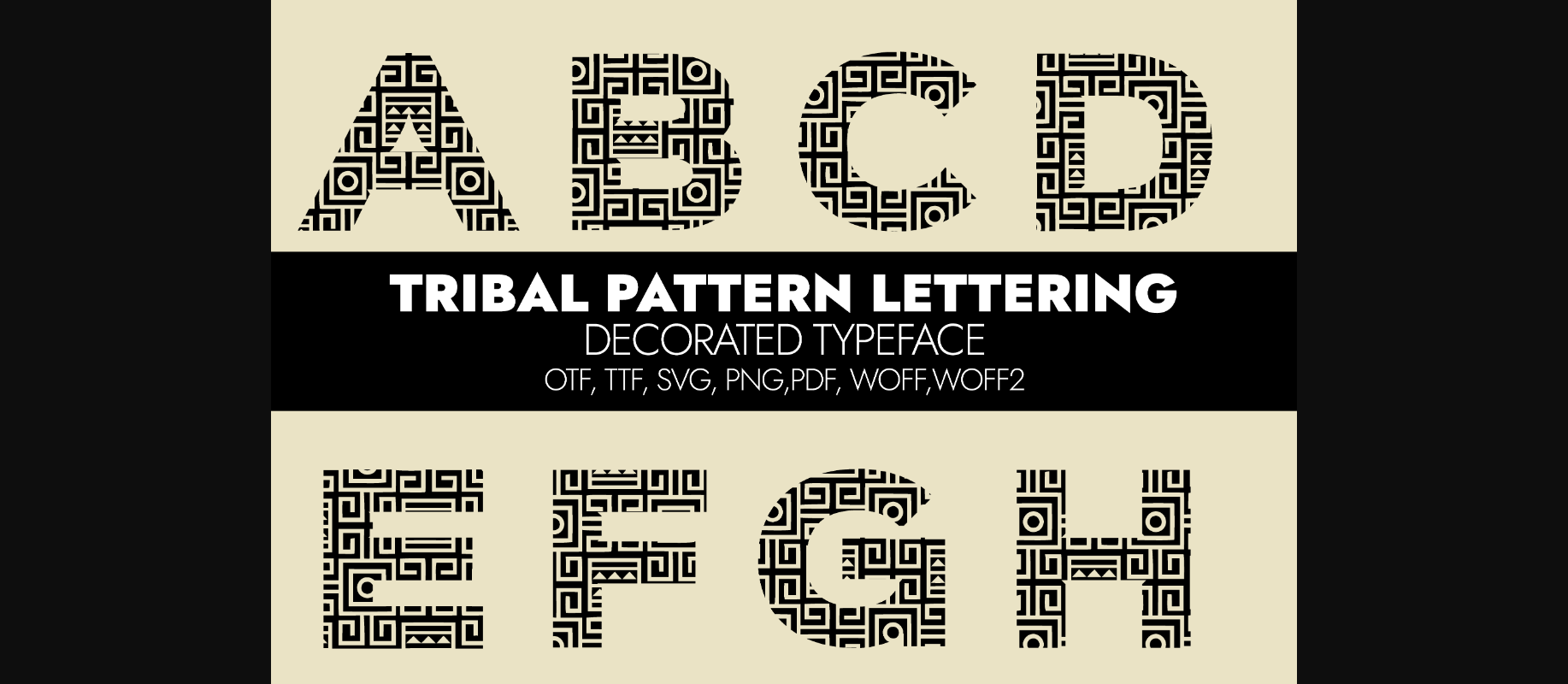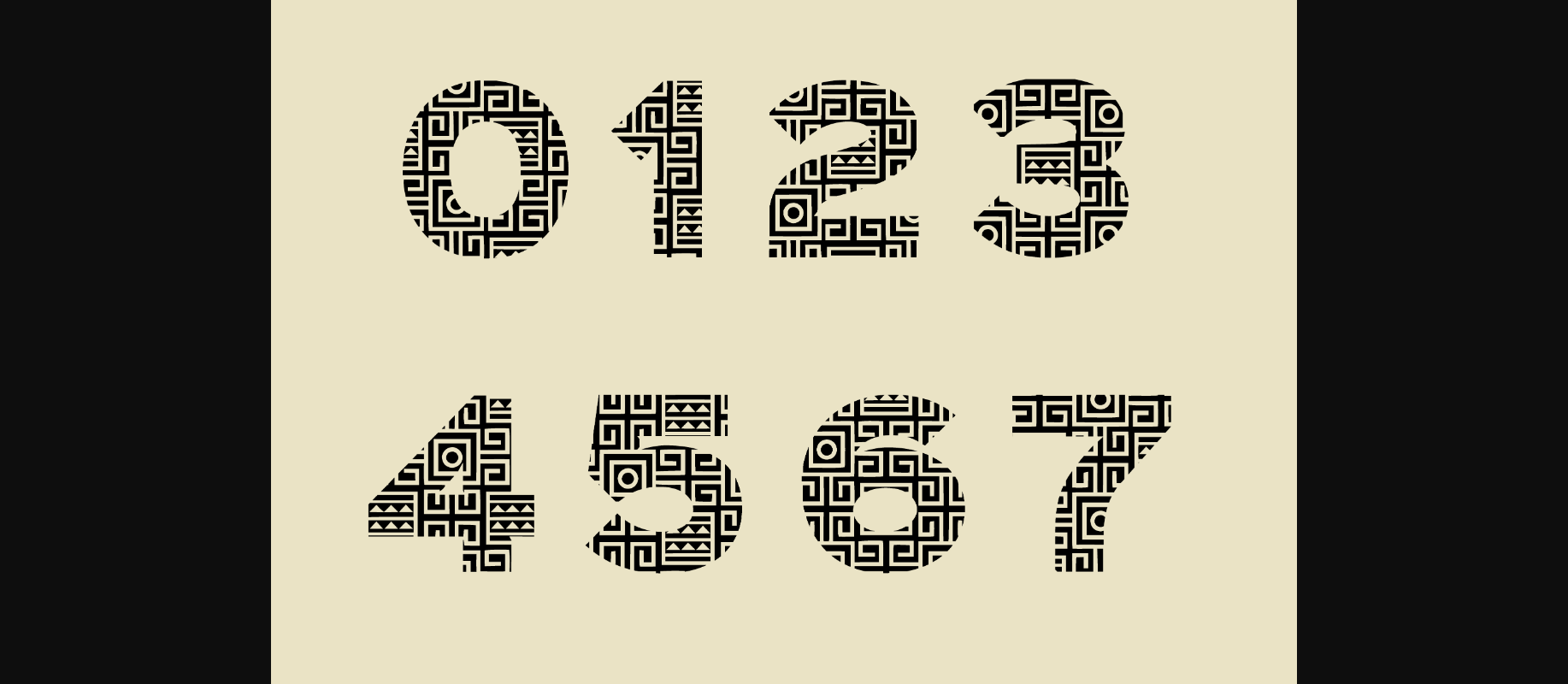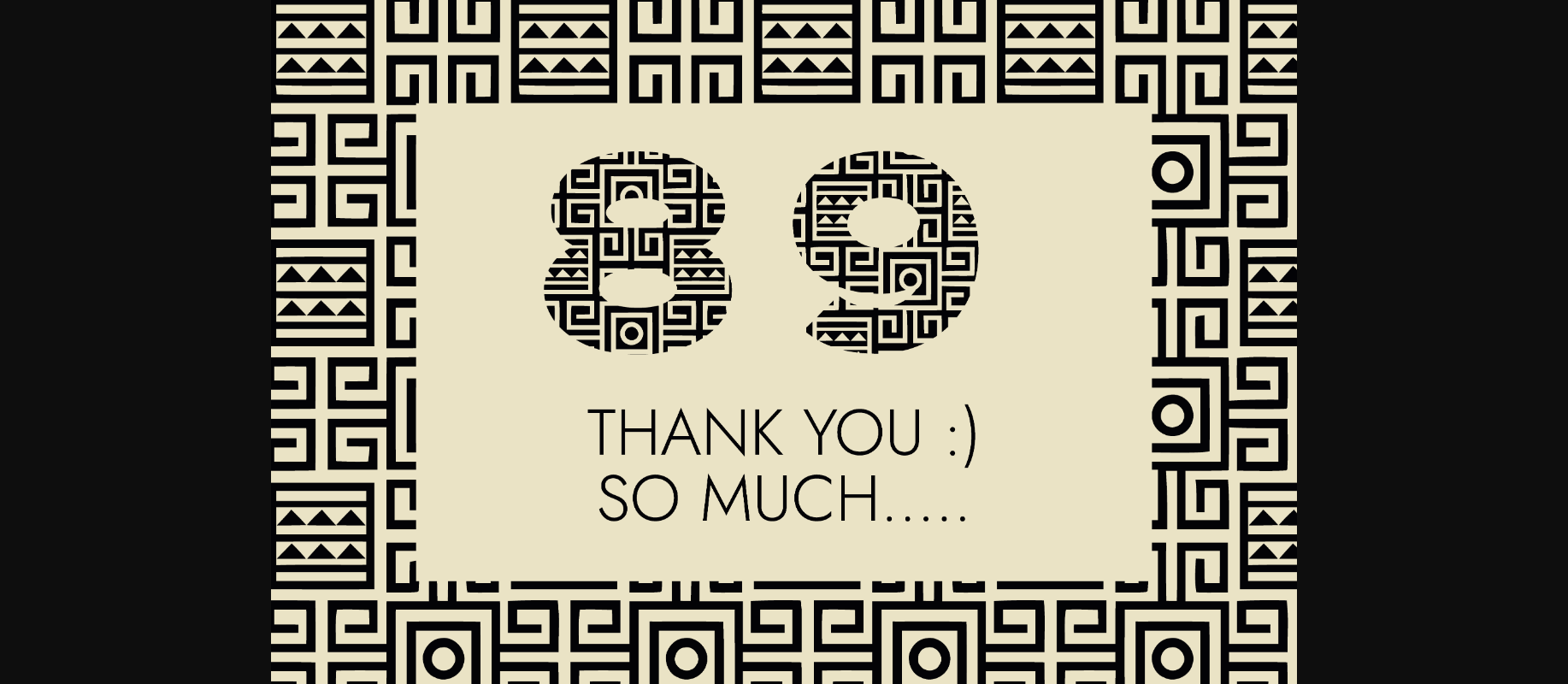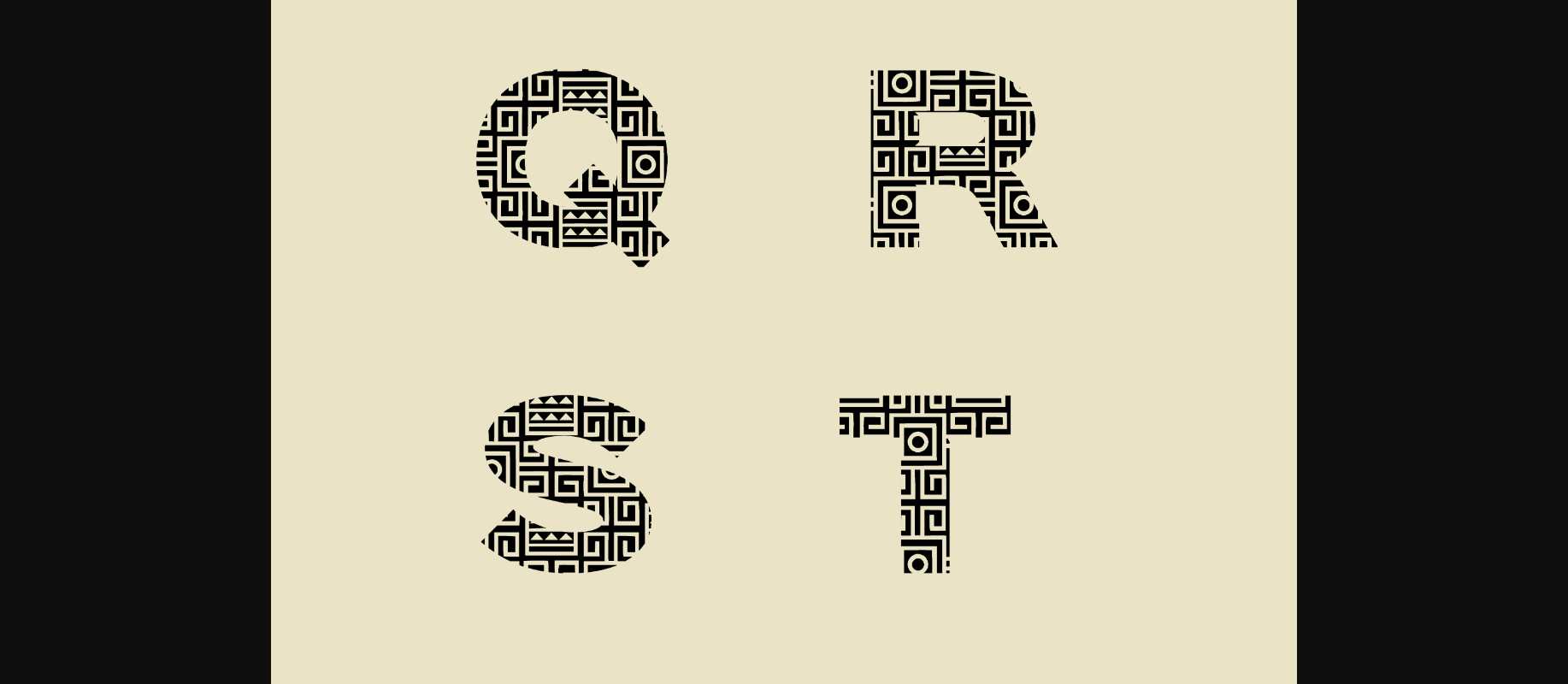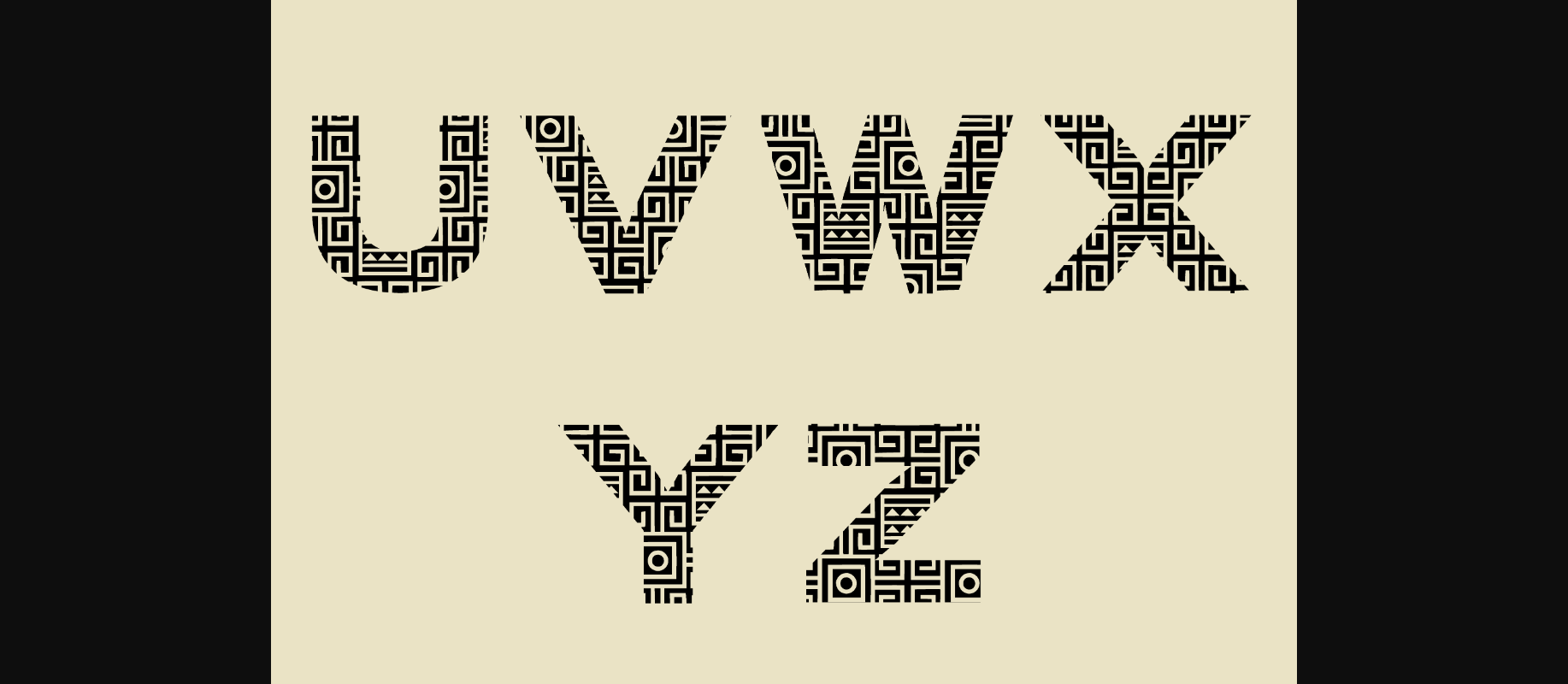
Tribal Pattern Lettering Font
About Tribal Pattern Lettering Font
Tribal Pattern Lettering is a bold and chic decorative font. This original look will appeal to a wide range of crafty ideas, from letterheads and titles, to stationery.